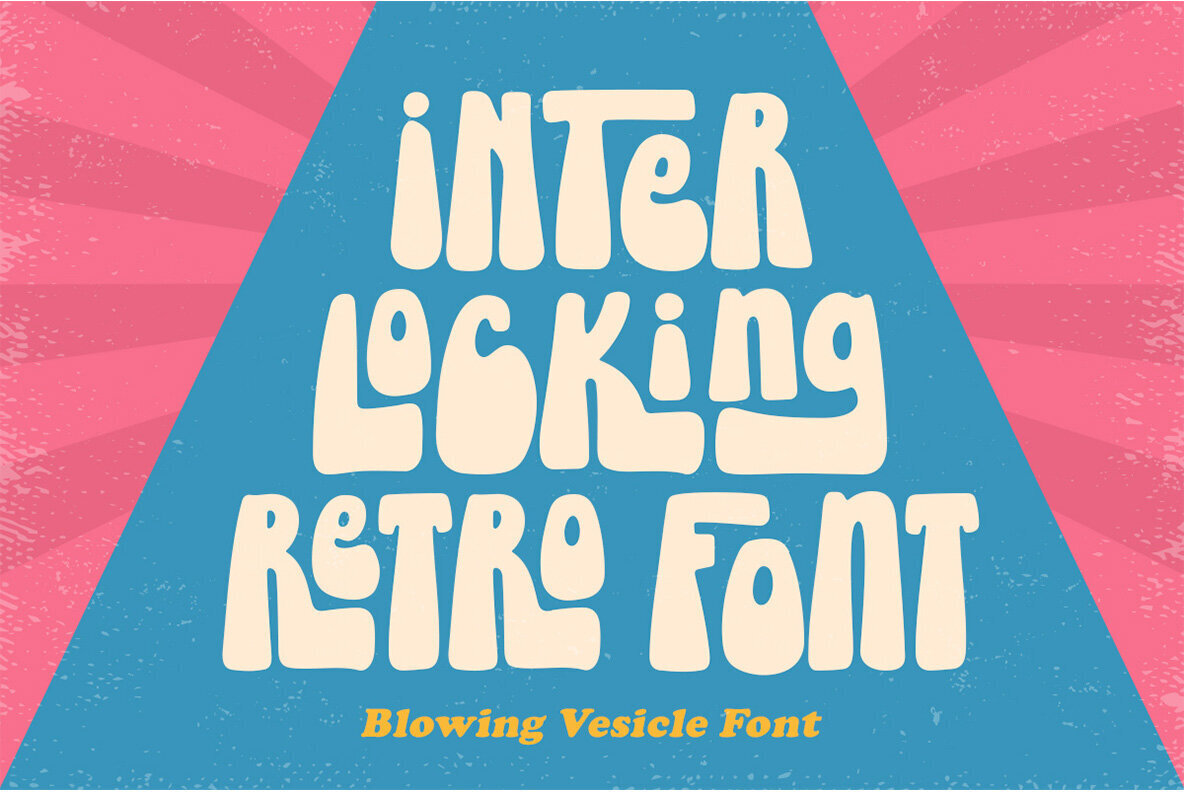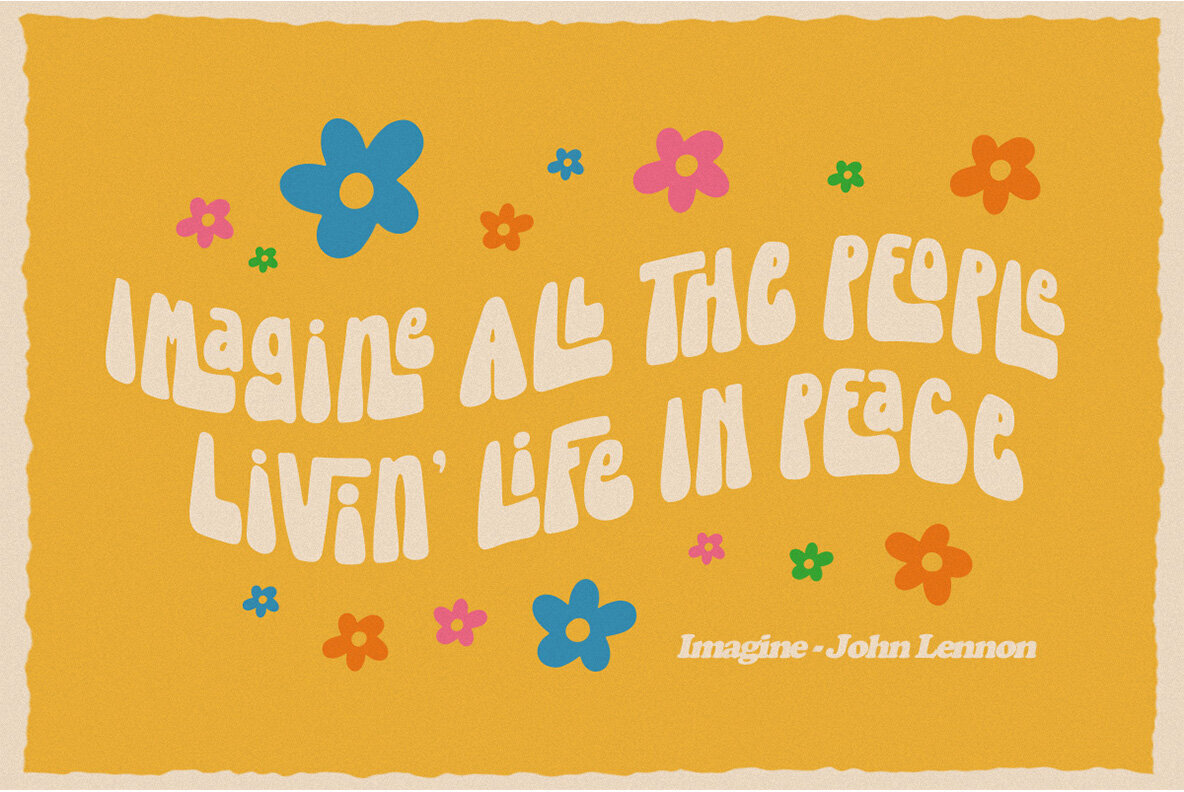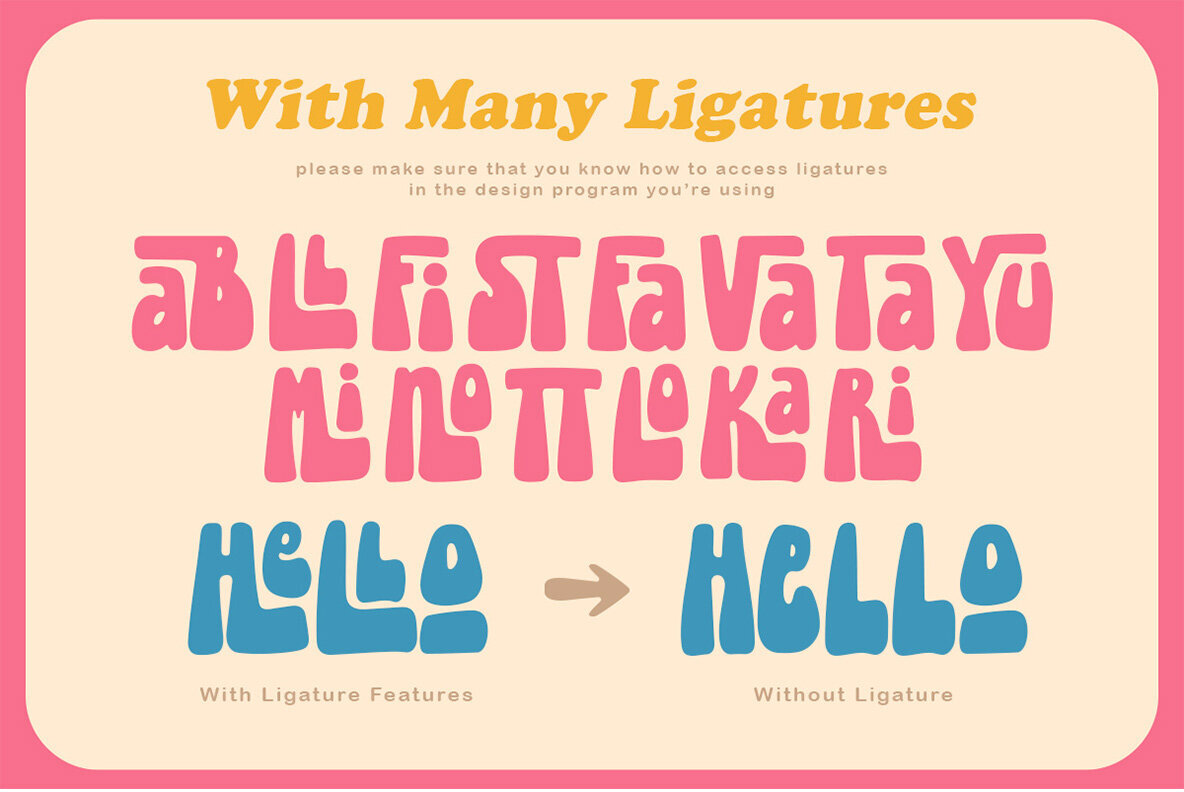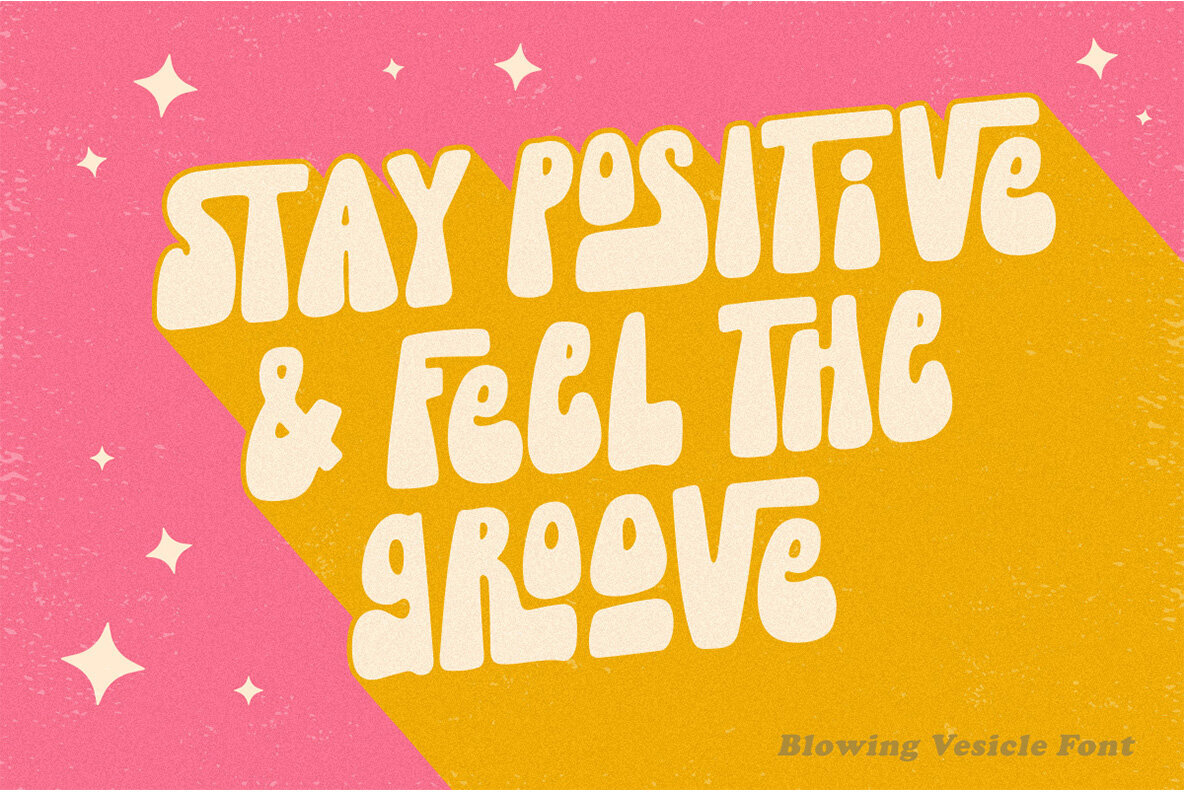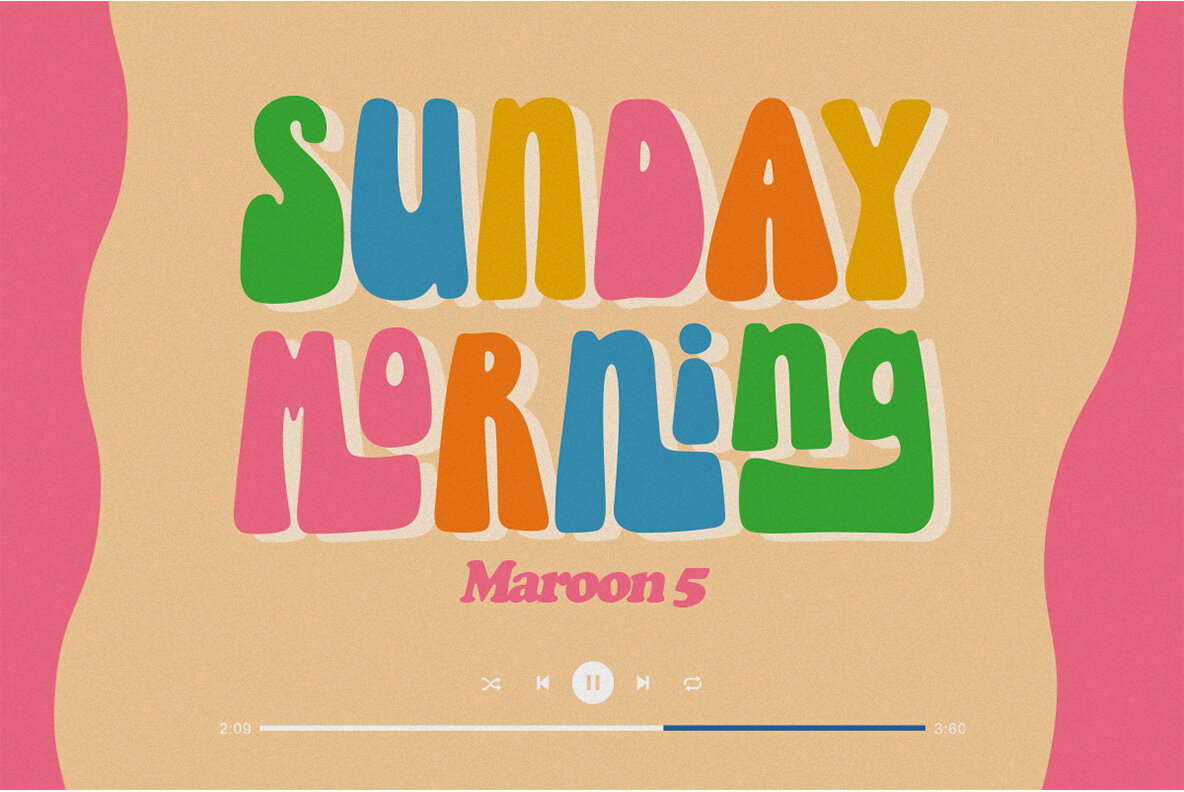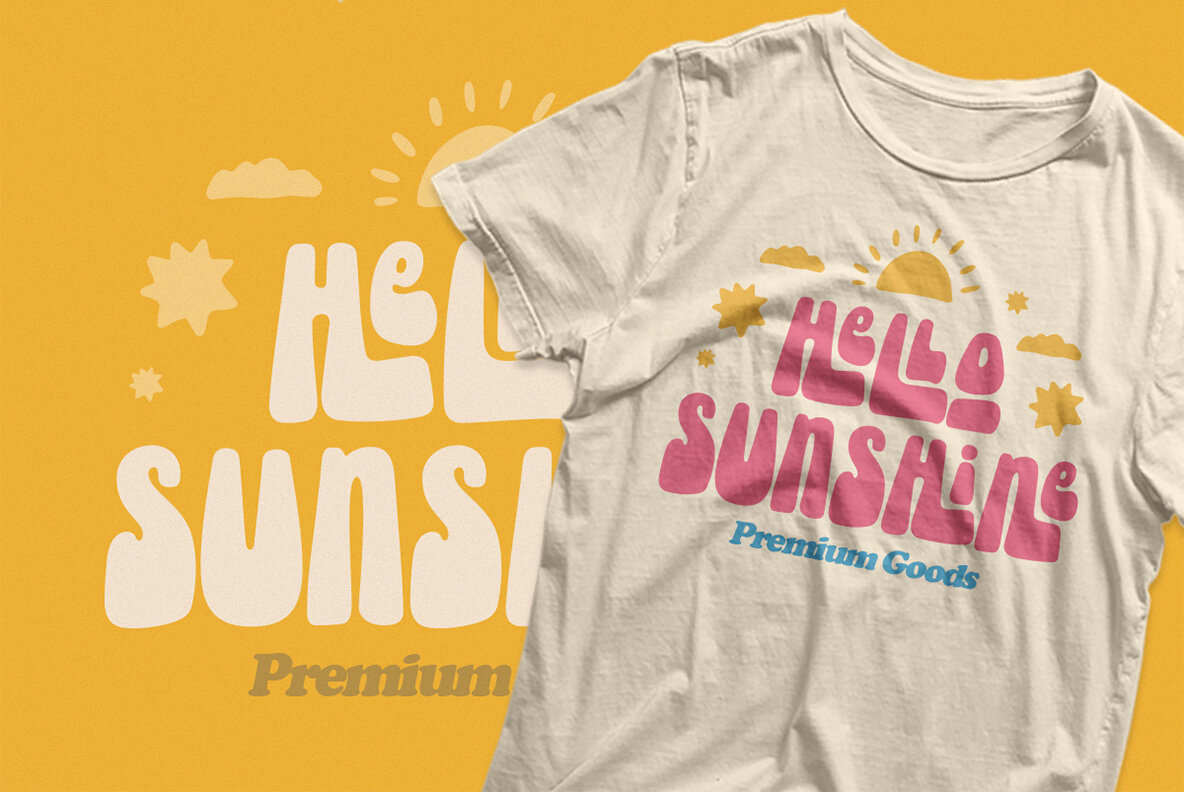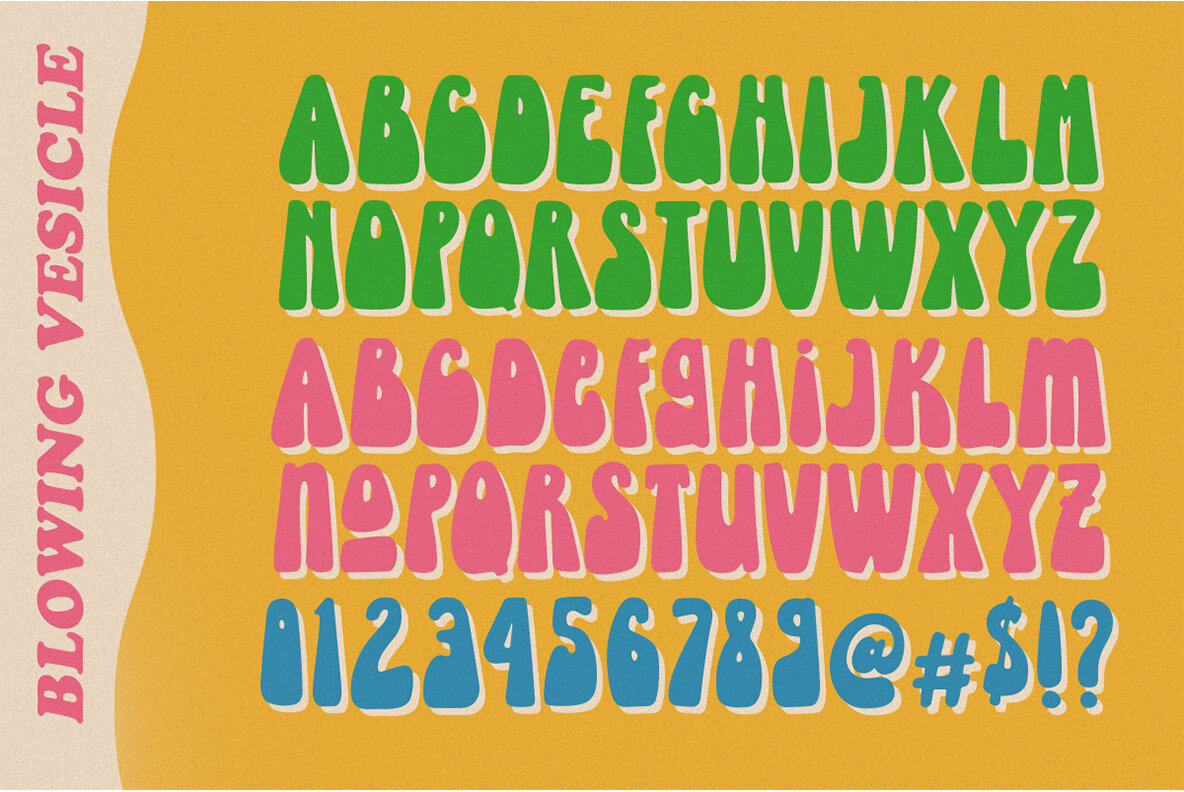
Blowing Vesicle Font
Blowing Vesicle Regular
Embrace a nostalgic trip back to the 1960s with Blowing Vesicle, a bold retro font that lends a distinct character to your design endeavors. Perfectly crafted for logos and a variety of formal settings, this typeface suits invitations, labels, magazines, books, and greeting cards. It's equally at home in packaging and fashion projects or any context that calls for a touch of vintage flair.Blowing Vesicle: A Retro Bold Typeface